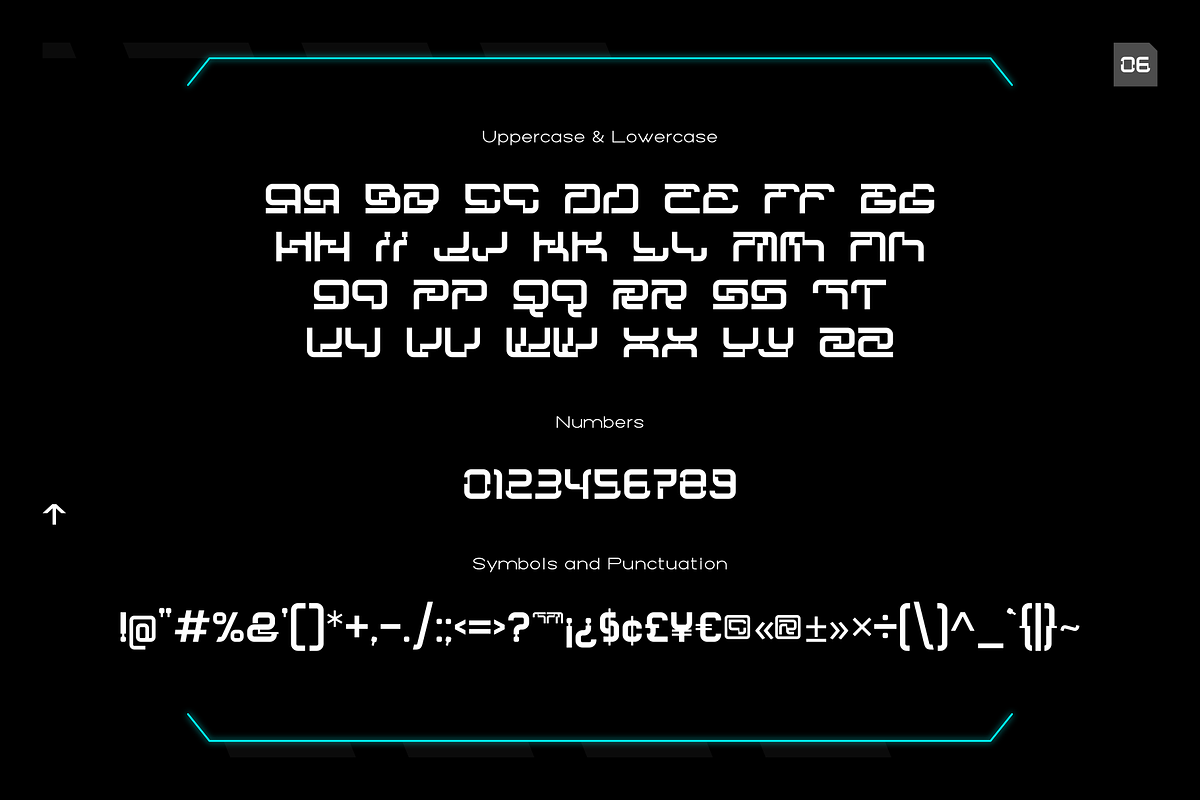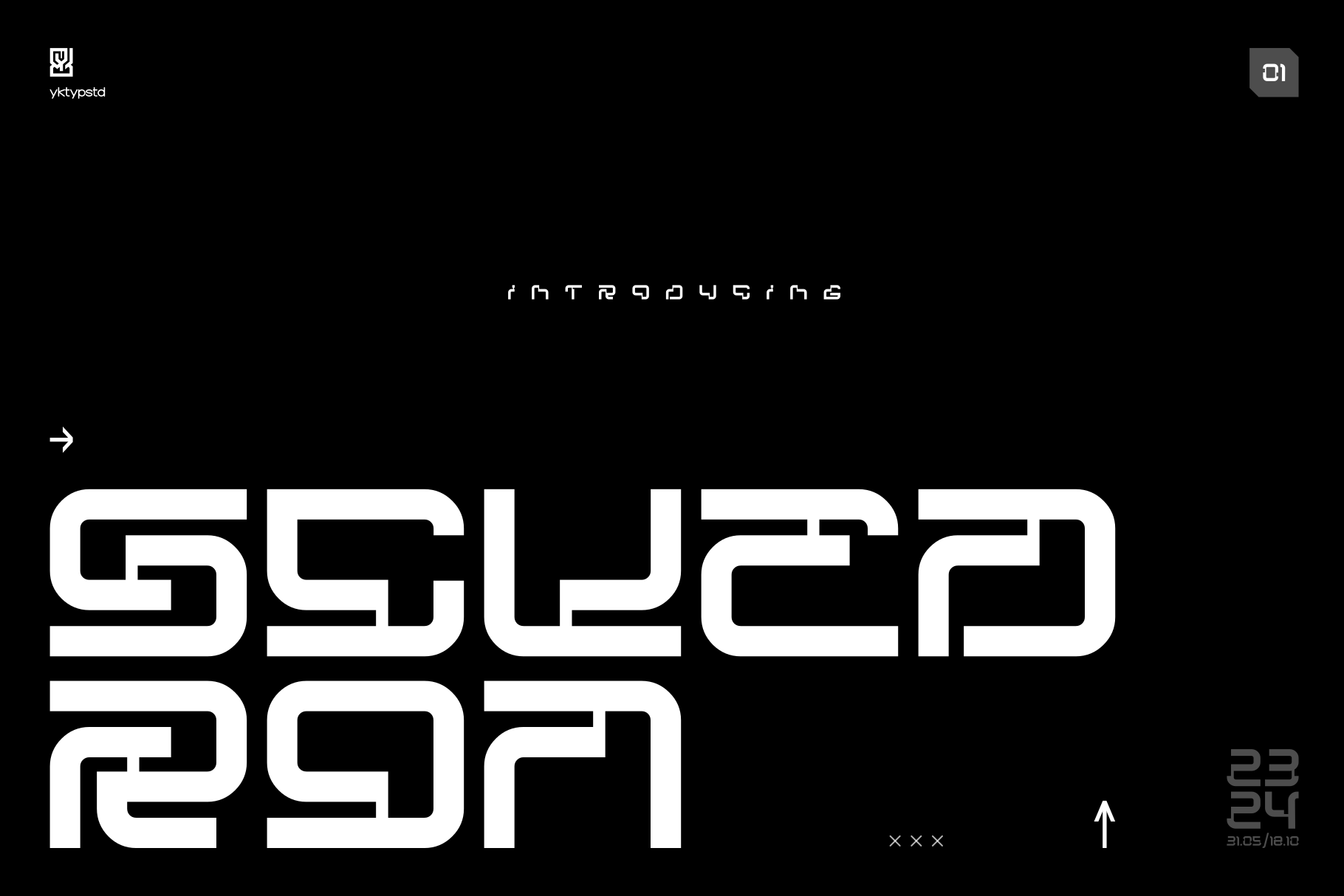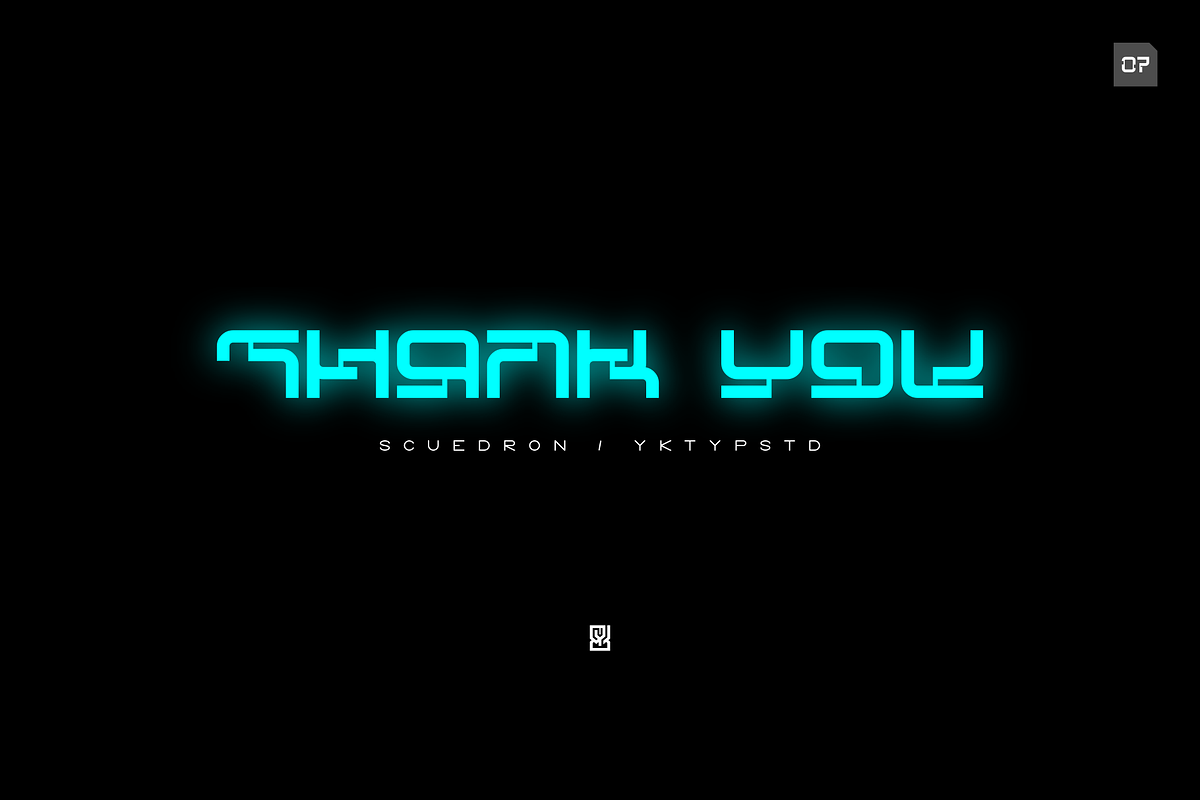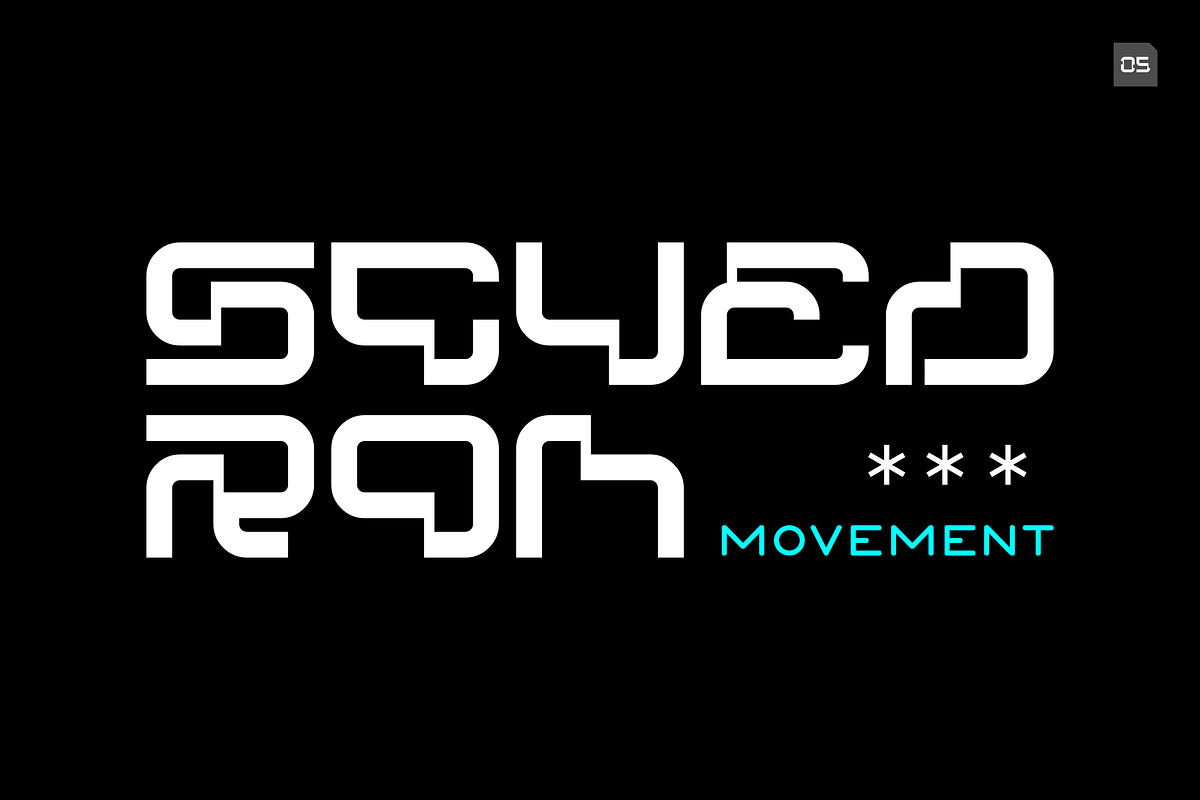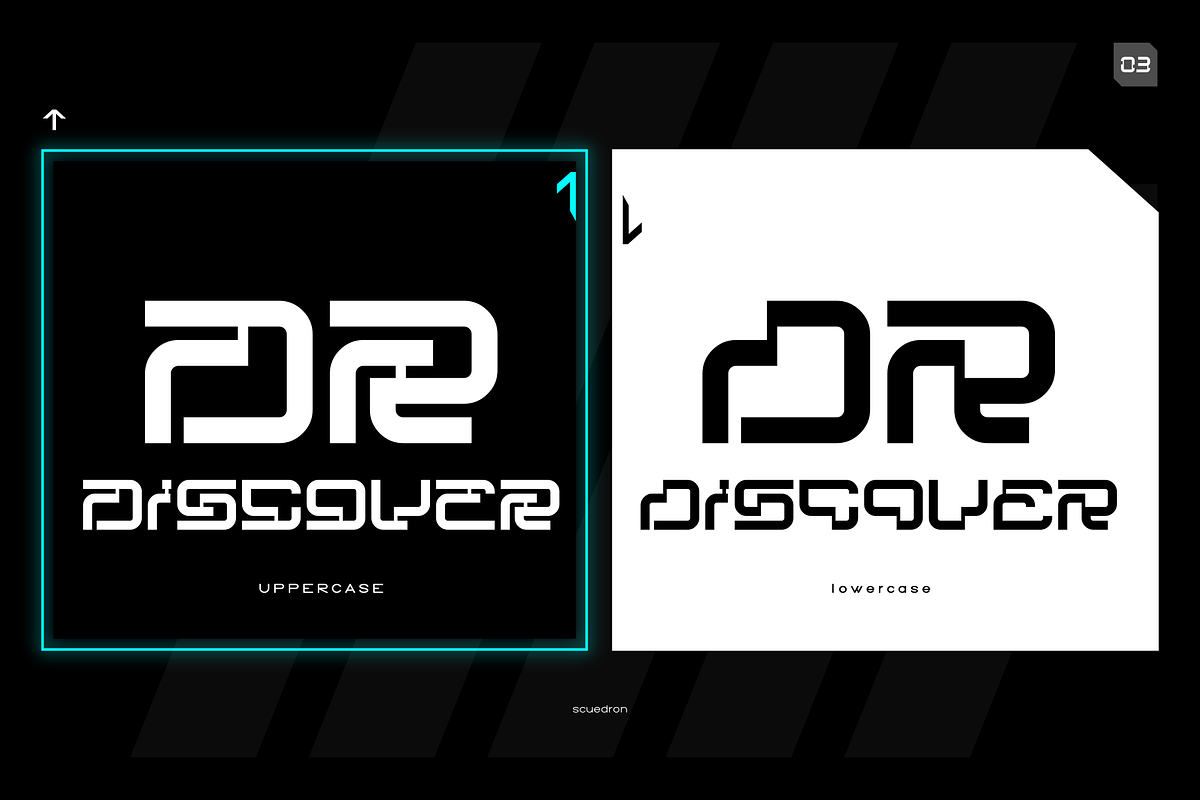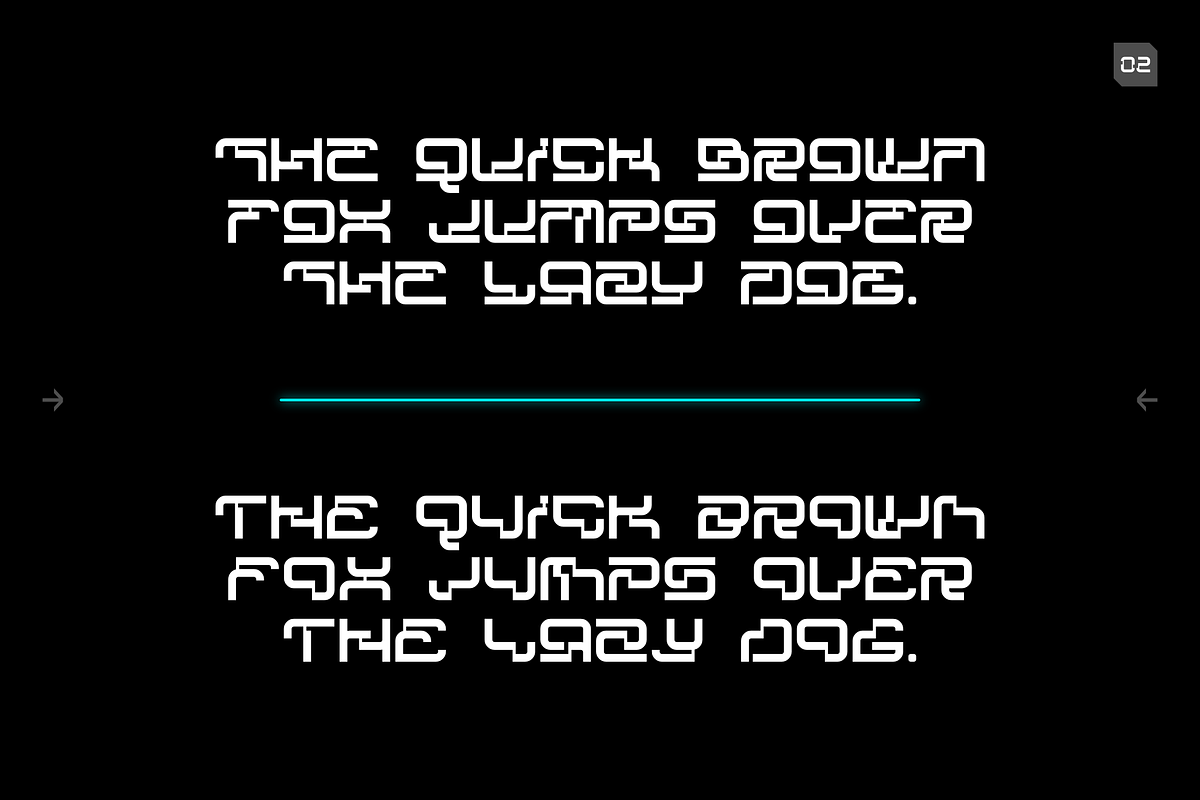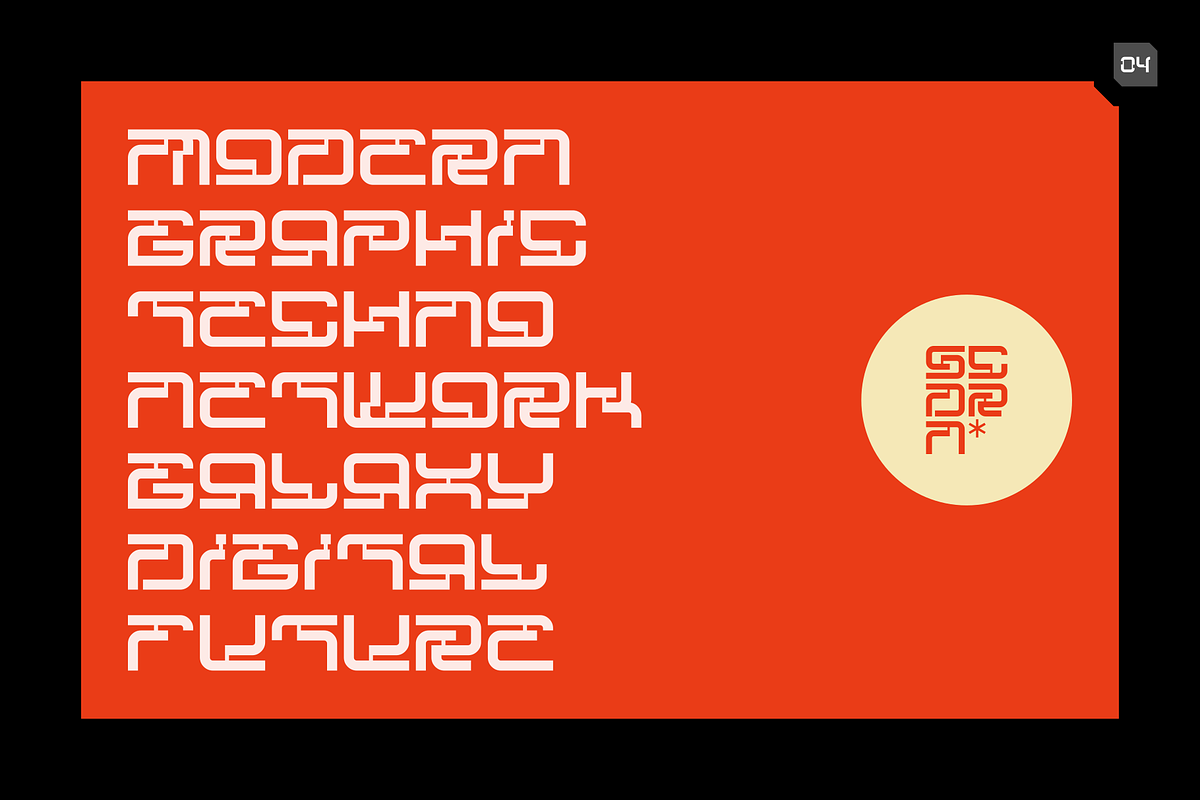
Scuedron - Modern Futuristic Font
Scuedron is a modern futuristic font that offers an innovative play on letterforms. Brings an air of forward-thinking creativity to any text. Scuedron is the perfect choice for use in future-themed designs, such as logos, labels, posters, book titles, magazines, films, games and more.